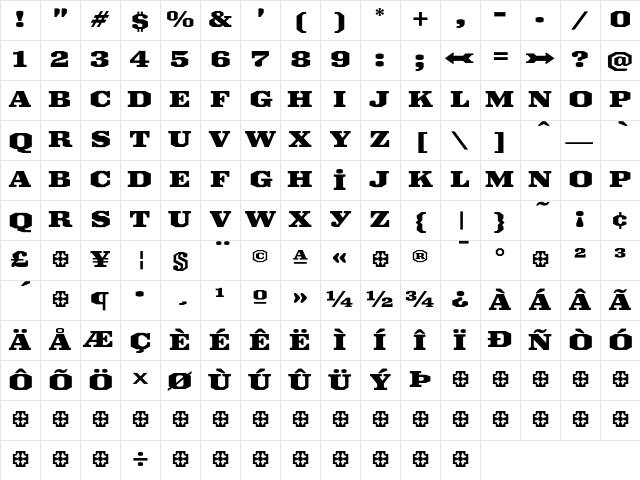
Ironmonger Extnd
Style: Extnd
Design Context for Ironmonger
Ironmonger is a composed and adaptable typeface that performs quietly and consistently across a wide range of design contexts.